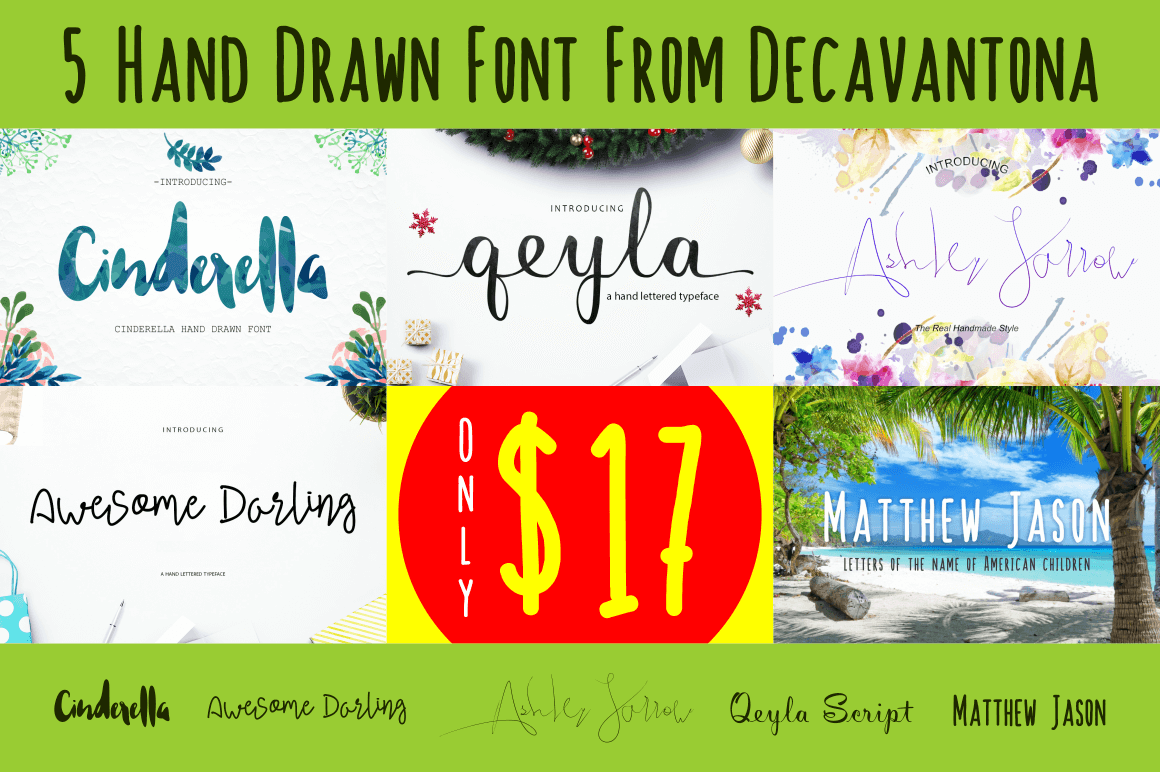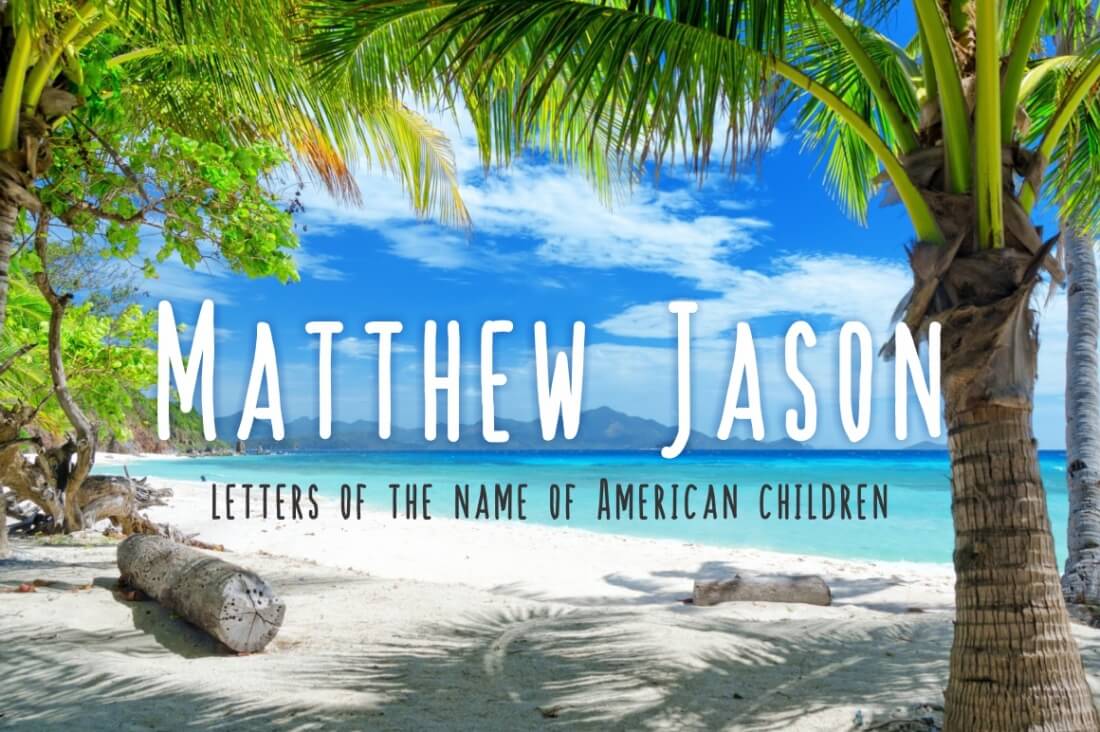
There’s something special about hand-drawn fonts. Not only do they have that personal touch, but they add a uniqueness to your work. With this Mighty Deal from Decavantona you’ll get 5 Beautiful Hand-Drawn Fonts for 1 incredibly low price. With loads of OpenType features and a royalty-free license, you’re all set to bring your latest project to the next level!
- Get 5 high-quality, professional hand-drawn fonts in 1 incredible bundle.
- Besides loads of alternative characters, you’ll also get a variety of OPenType features like swashes and alternating styles.
- Add some serious originality to your latest project with these handmade fonts.
Take a closer look at the 5 fabulous fonts included in this deal:
Cinderella
This beautiful hand-drawn font is a great choice for a variety of print projects including invitations, cards, banners, logos and more.
Ashley Jarrow
A splashy handwriting font, Ashley Jarrow is a great choice for watermarks, signatures, logos, wedding design projects and more.
Qeyla Script
Another fabulous hand-lettered typeface, Qeyla Script is a simple and elegant typeface for use as a title, signature, logo, wedding invitation, labels, letterhead and more.
Awesome Darling
Awesome Darling is a professional-yet-fun handlettered typeface that’s a fabulous choice for everything from branding to greeting cards.
Matthew Jason
Inspired by travel and a dose of nostalgia, Matthew Jason is a casual, easy-to-read hand-drawn font that works well as a display font, as well as at smaller sizes. Font includes capitals, numerals, most common symbols and punctuation, plus more than 364 glyphs.